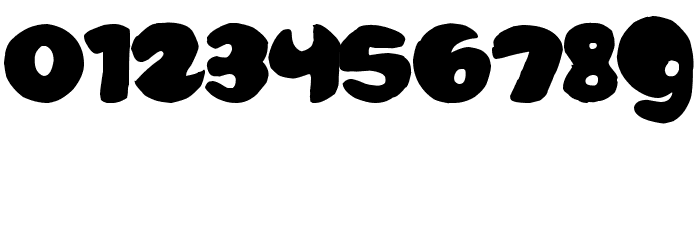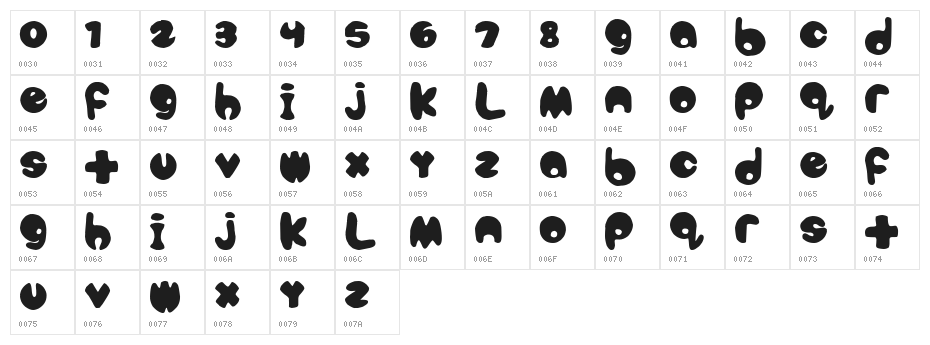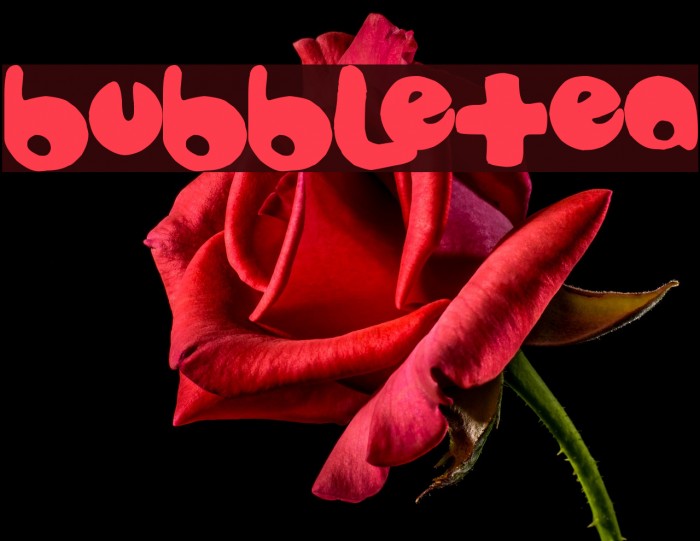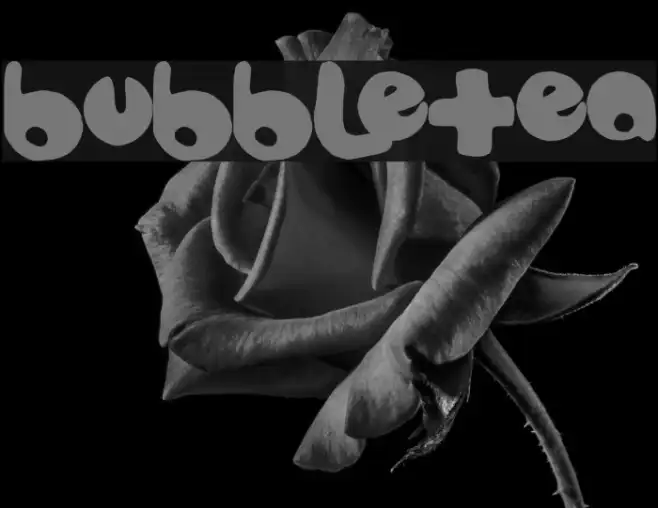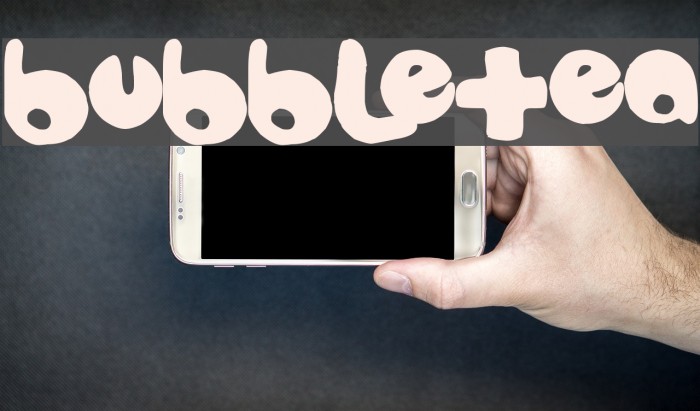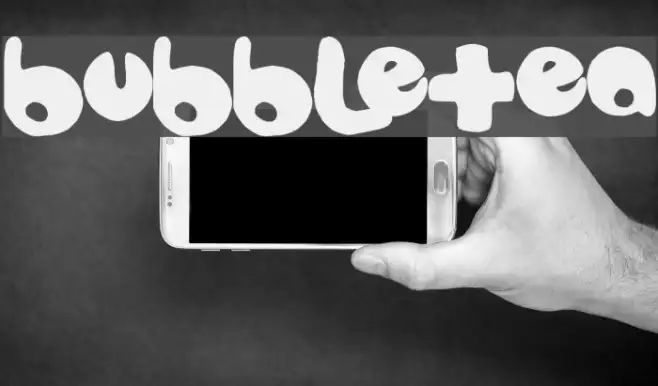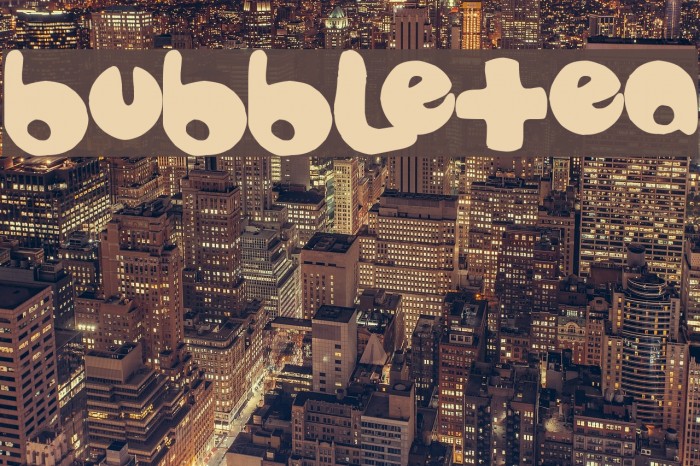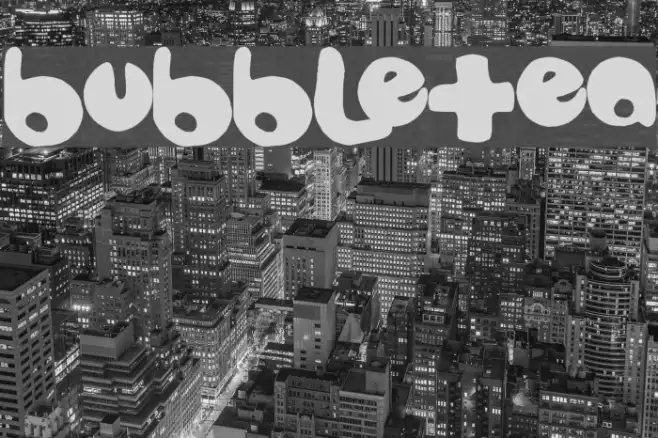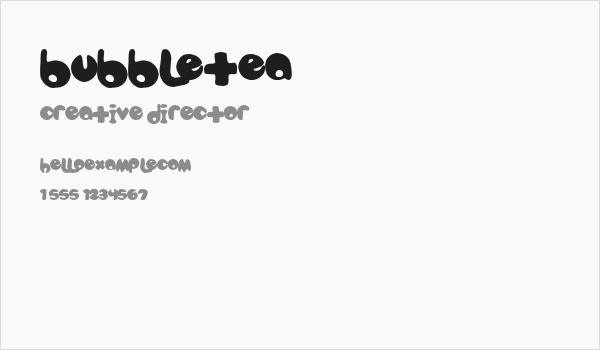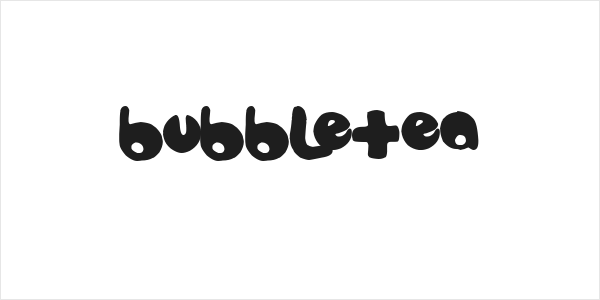
bubbletea Font
bubbletea Description
This playful and bold font features rounded, bubbly characters that exude a sense of fun and creativity. The letters are thick and have a uniform stroke width, giving them a cohesive and solid appearance. The overall design is reminiscent of playful childhood themes, making it ideal for projects that require a touch of whimsy and lightheartedness. The characters are well-spaced, ensuring readability despite their unconventional shapes. This font is particularly suited for creative projects where a casual and friendly tone is desired.
Overall StylePlayful
Proposed ProjectsIdeal for children's books, playful branding, party invitations, and creative posters.